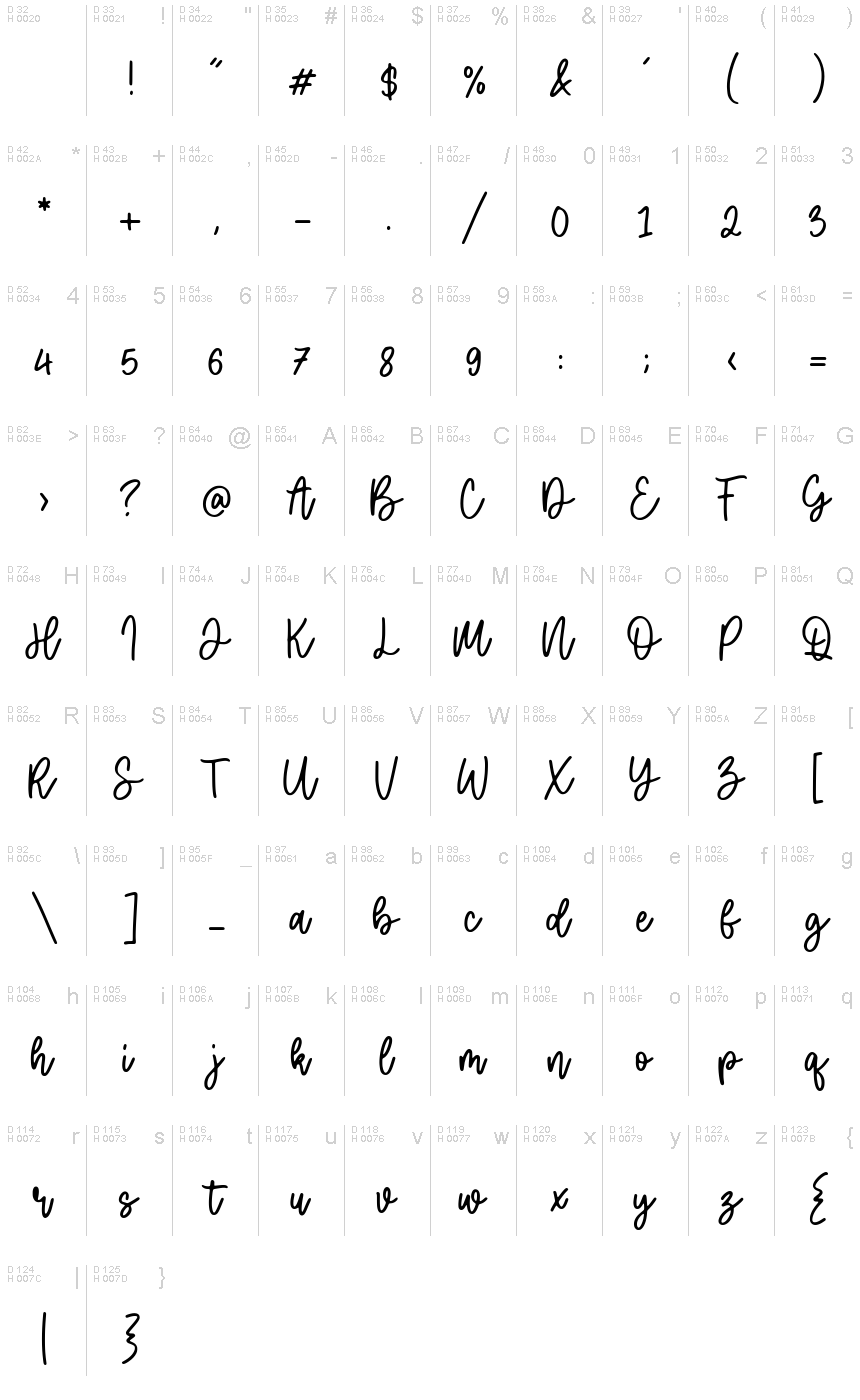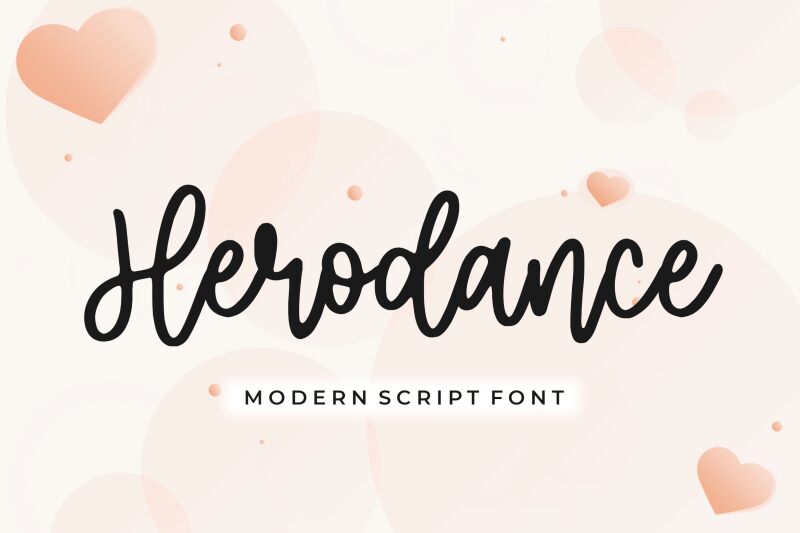
Herodance
Herodance font from Balpirick Studio is a flowing, and letter connected handwritten style font with smooth lines. Features medium thickness letters with casual elegance, playful mood completed by consistent stroke weight rounded edge for more informal style.
Herodance is a perfect font for any project needing a casual handwritten feel! Blog Headers, Invitations, Wedding Items, Quotes and Social Media are just a few ways we see this font being used! Use this one today in your branding presentation or marketing materials! I hope you have as much fun with it as I had creating it!